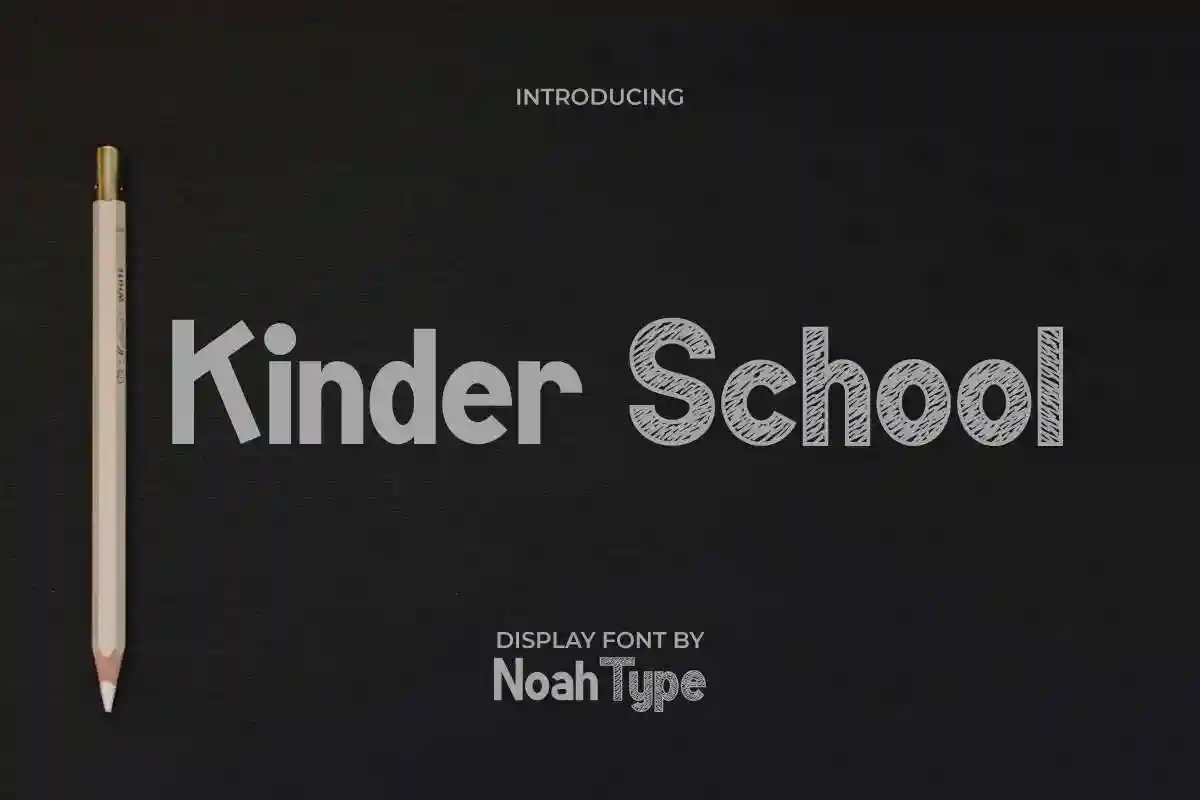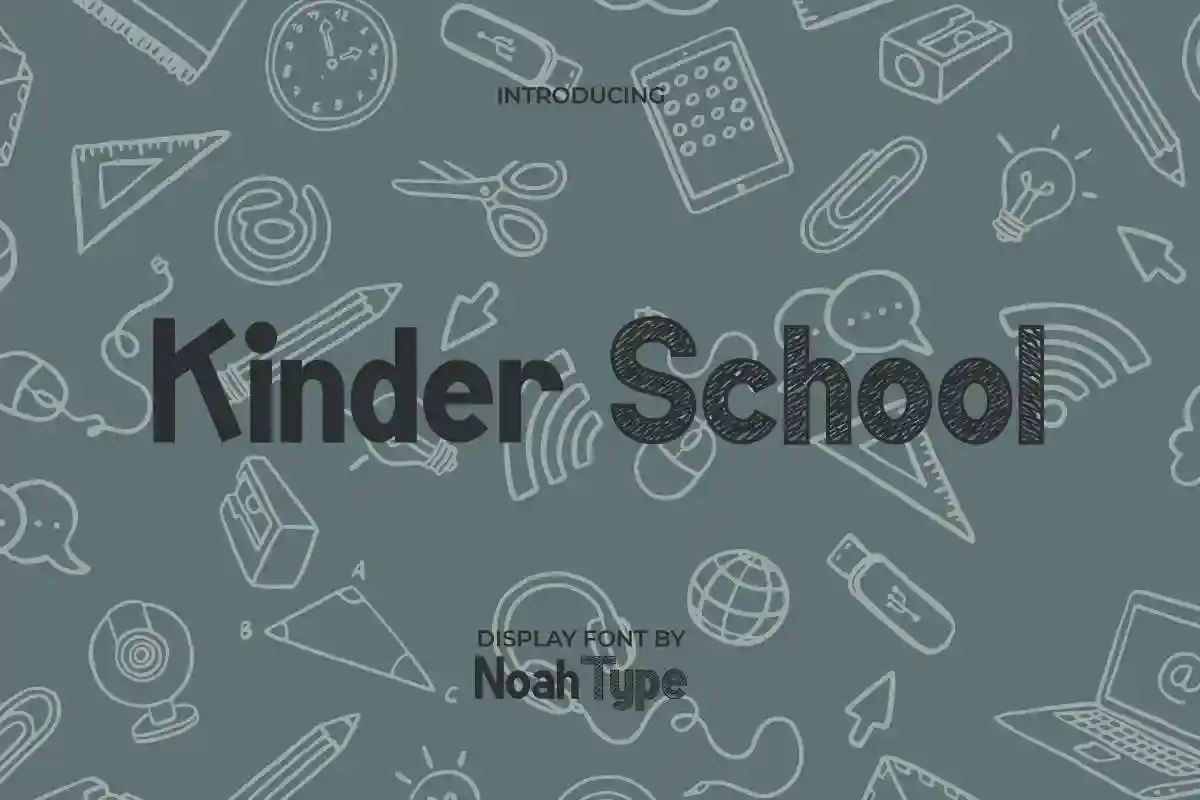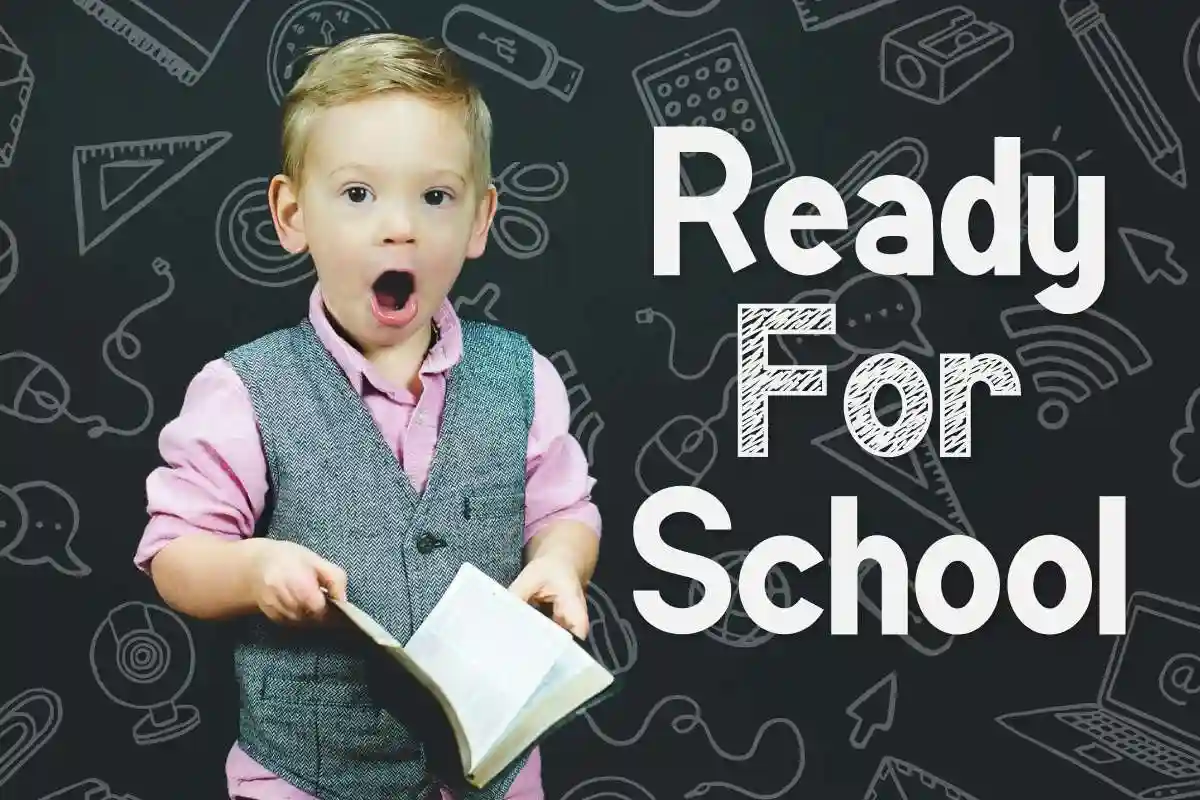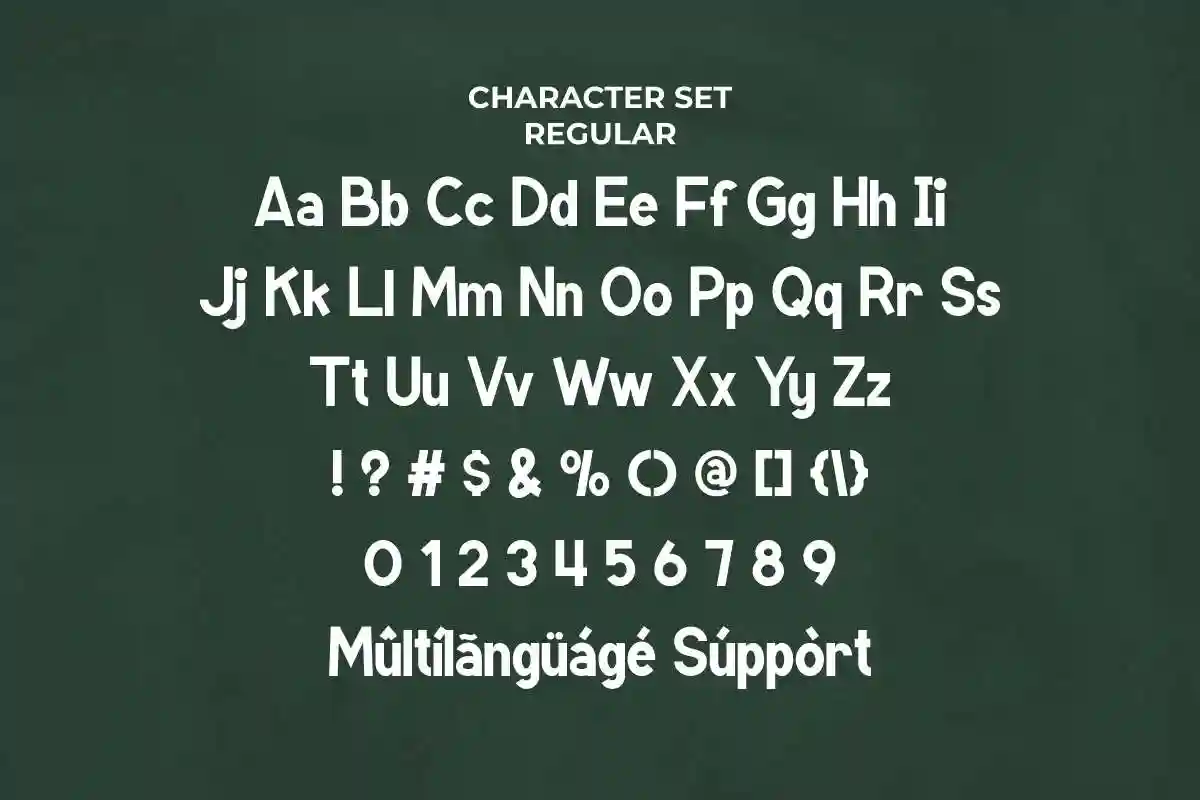
Kinder School is a sans serif and display font with chalk doodle sketch style. The font comes with two different styles: regular clean style and rough sketch font. This font will be amazing for any project : school project, classroom, kids products, toys company and many more
Looking for a playful and friendly font that brings out the joy of childhood? Meet Kinder School Sketch Font – a delightful hand-drawn typeface inspired by children’s doodles, classroom chalkboards, and early learning environments. Whether you’re designing for a school project, educational brand, or playful merchandise, this font adds a genuine touch of creativity and innocence.
Kinder School includes full set of Uppercase Basic Characters, Numerals and Punctuation. Here’s what’s Included on the zip :